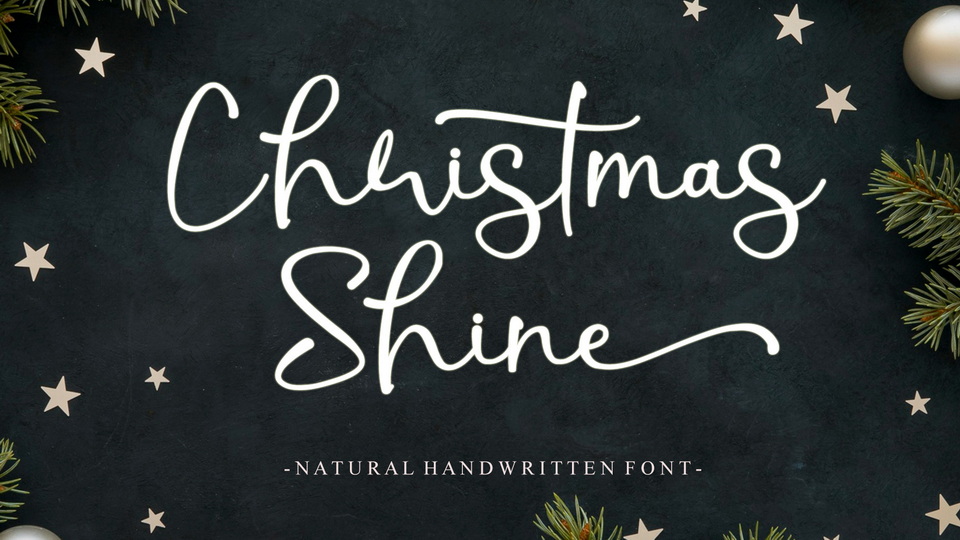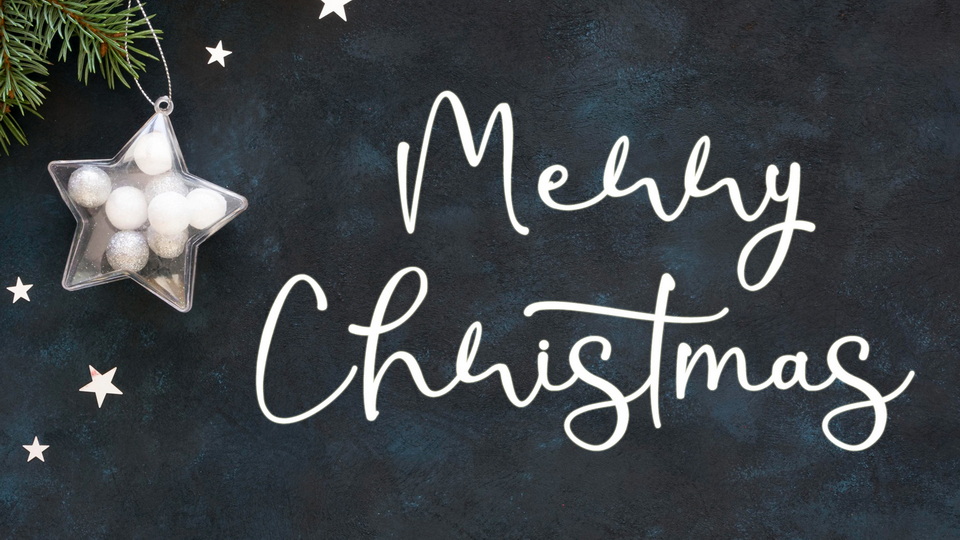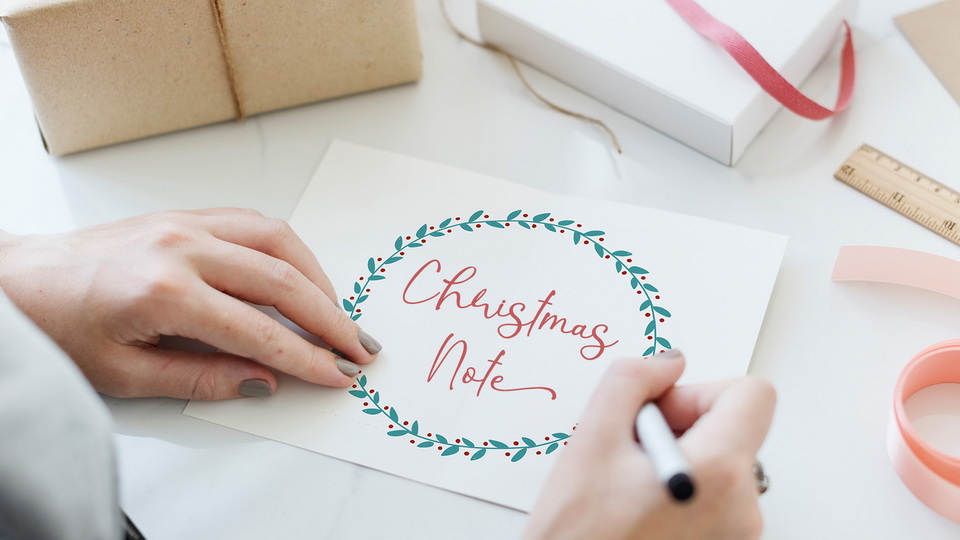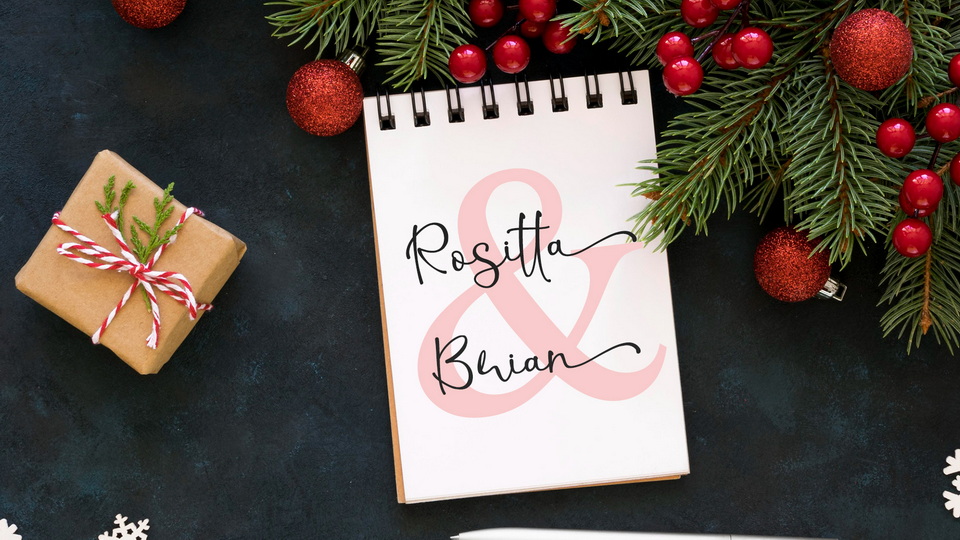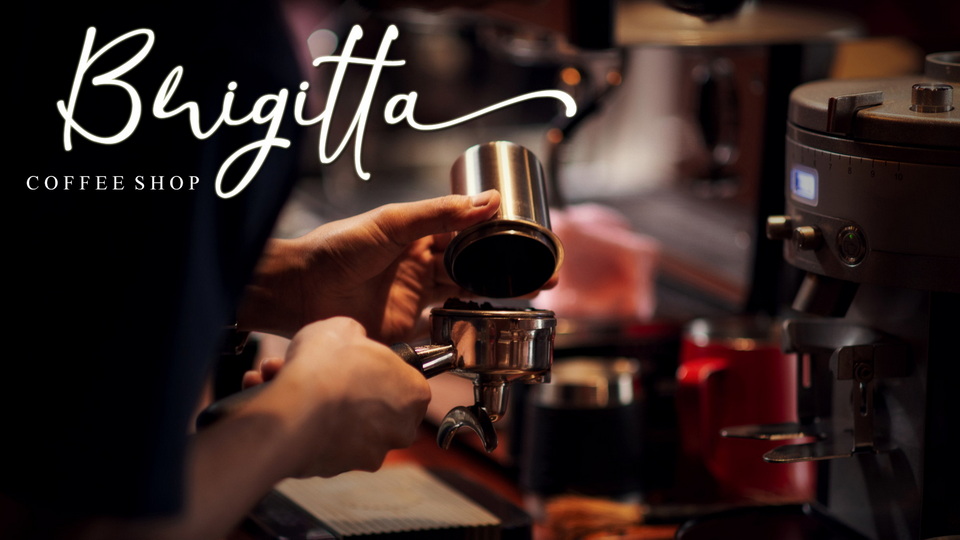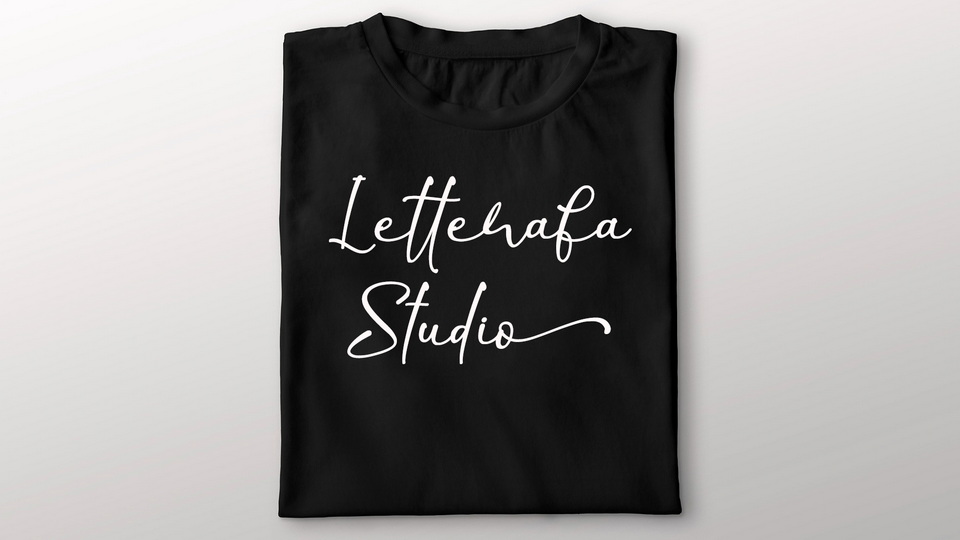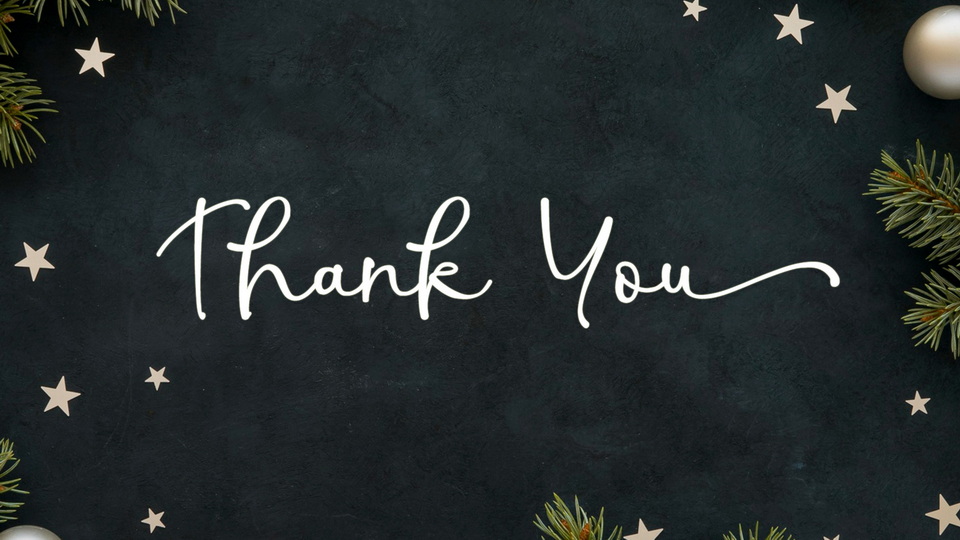
Christmas Shine is a beautiful and refined script font. It has a classy, elegant and modern look that can be used for logos, branding, invitations, stationery, wedding designs, social media posts, and much more.